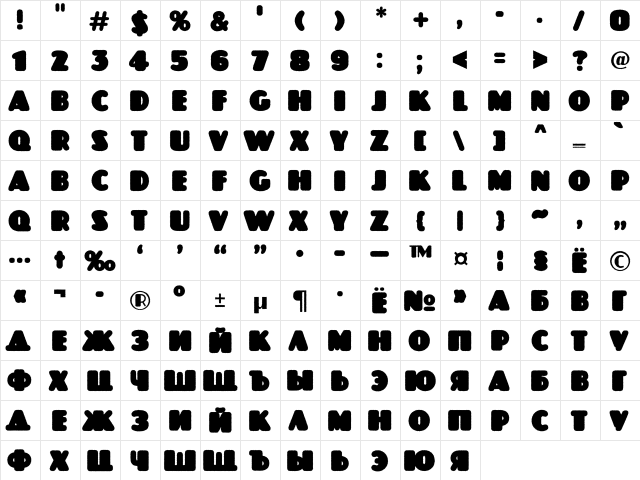
a_JasperTtlRndRgNord Regular Font Preview
a_JasperTtlRndRgNord Regular
Design Context for a_JasperTtlRndRgNord Typeface
a_JasperTtlRndRgNord is a composed and adaptable typeface that performs quietly and consistently across a wide range of design contexts.
Pro Tip: Use a_JasperTtlRndRgNord in both headline and body roles to test its range before committing to a single application.